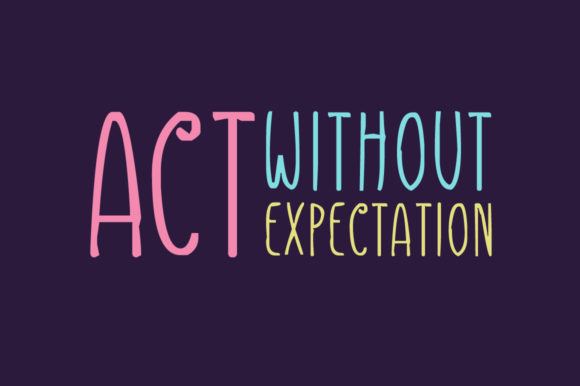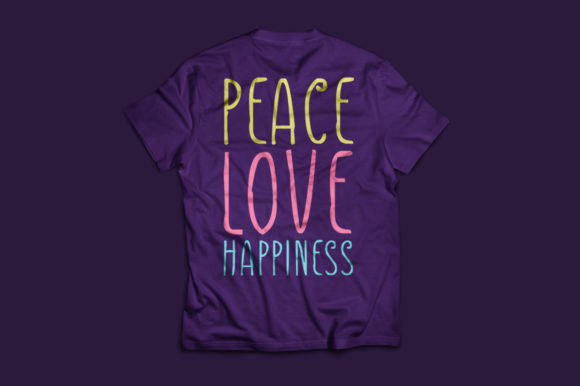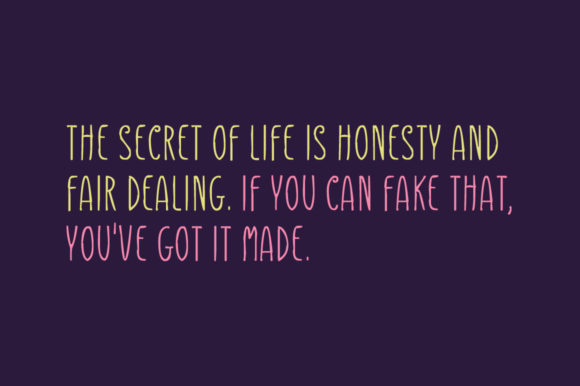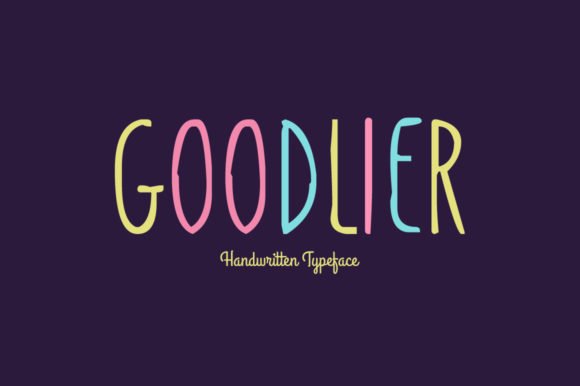
Introduction to Goodlier Font
The Goodlier is a brand new handwritten font.
It’s perfectly suited for stationery, logos, t-shirts, papers, print designs, website headers, photo frames, flyers, music covers, posters, image sliders and much more .
Key Features of Goodlier Font
Why Choose Goodlier Font?
Goodlier Font offers exceptional quality and versatility, making it a valuable addition to your design toolkit. Whether you’re creating for personal projects or commercial use, Goodlier Font delivers professional results.